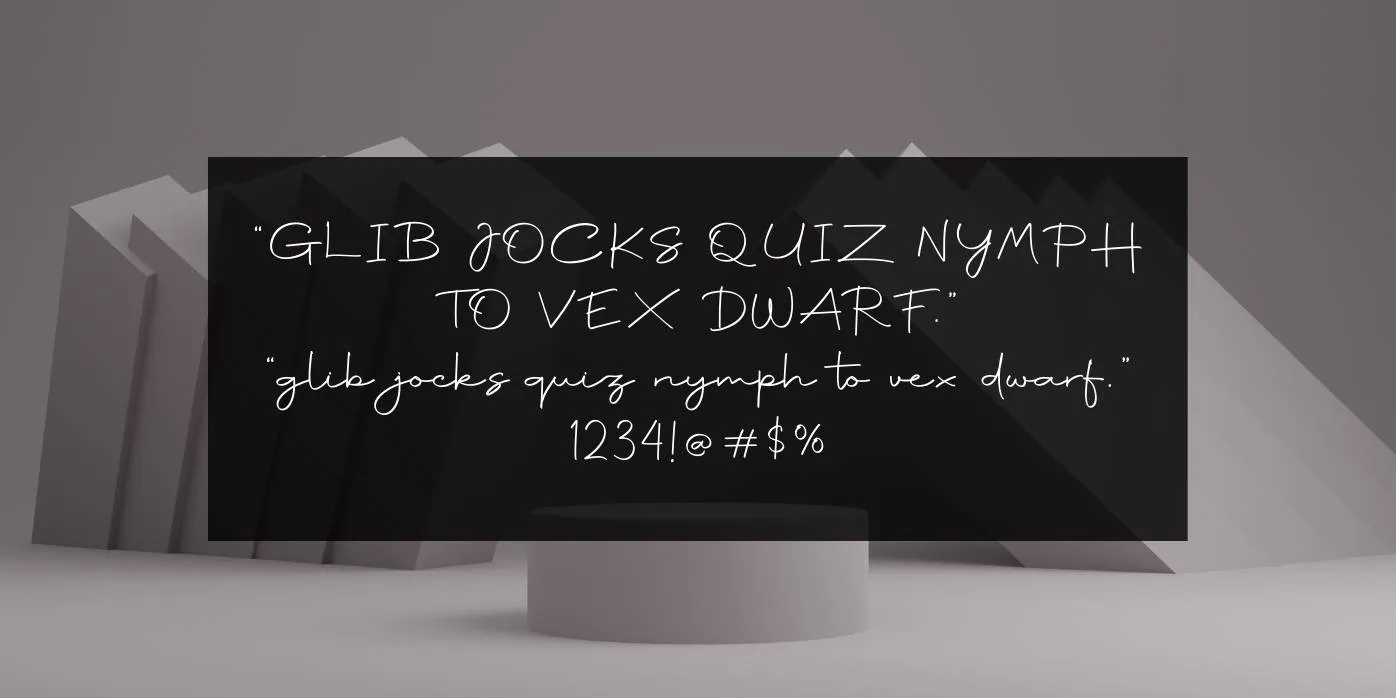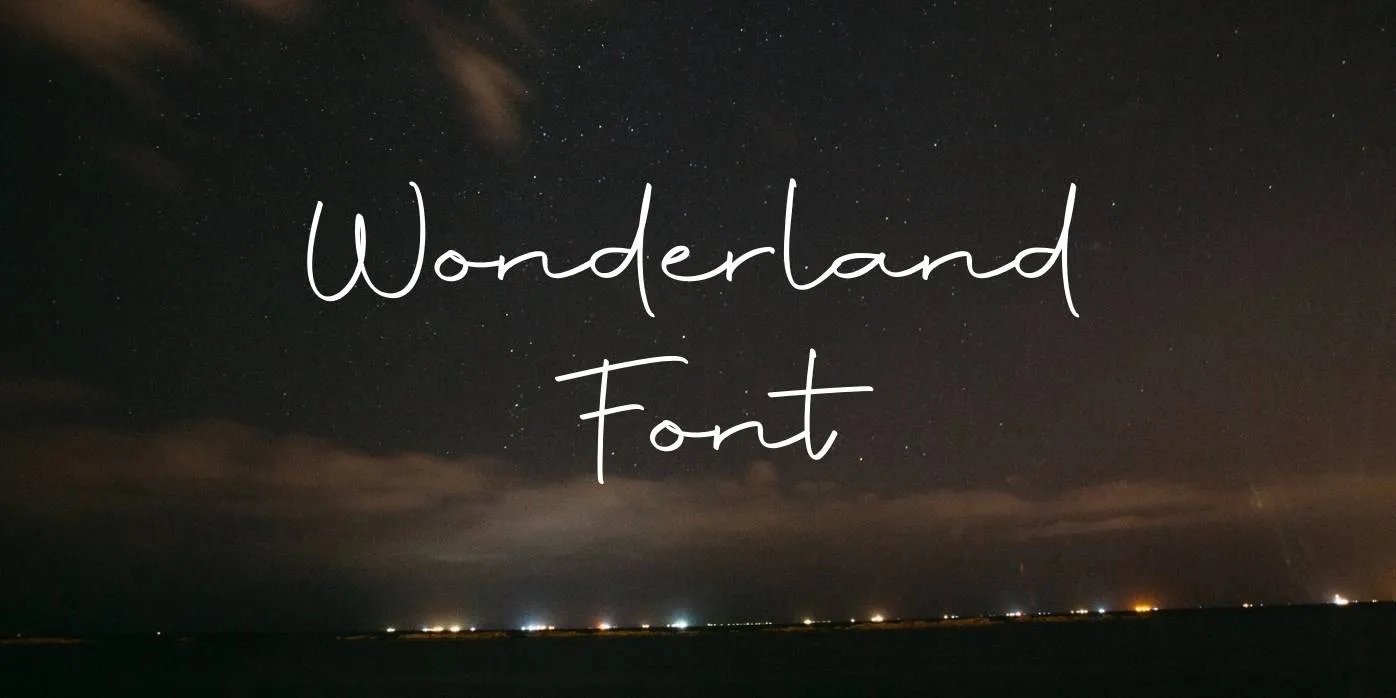
Wonderland Font
In this post, we introduce a tremendous typeface named Wonderland Font that was designed by Hartadi Design. This typeface belongs to the handwritten font family. Wonderland Font will help you add a personal touch to your designs. This typeface includes different characters and styles that make it perfect for a wide range of design projects.
This typeface has a unique style that makes it stand out from the rest. It is perfect for those who want to add a personal touch to their designs. The best thing about this font is that it is free for personal use. The copy and paste function is best for different designs.